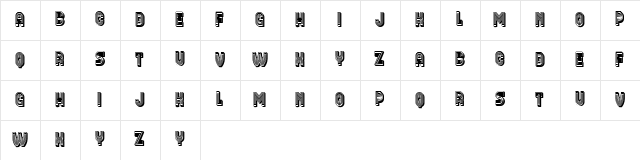
Yogurt Black 3D Regular
Design Context for Yogurt Black 3D Typeface
Yogurt Black 3D is a composed and adaptable typeface that performs quietly and consistently across a wide range of design contexts.